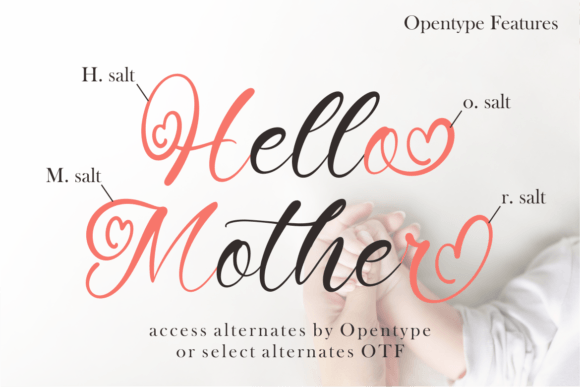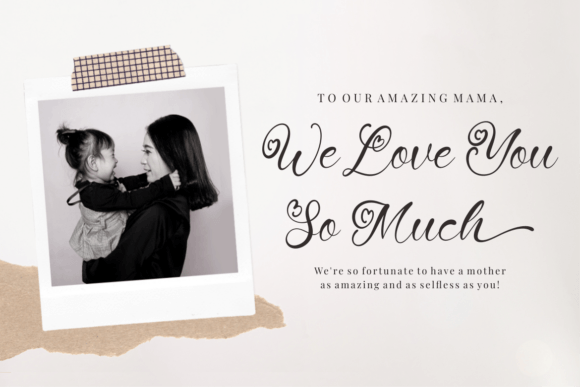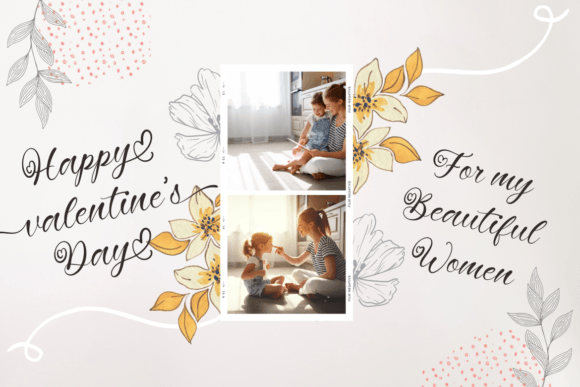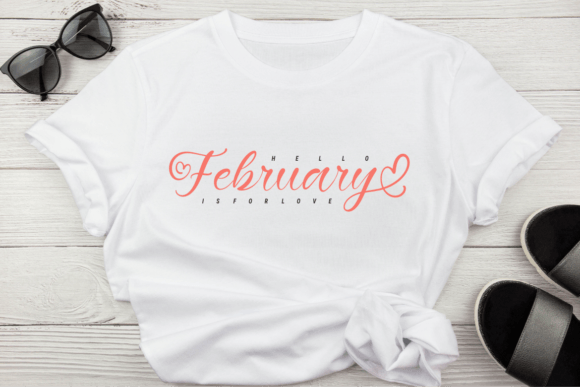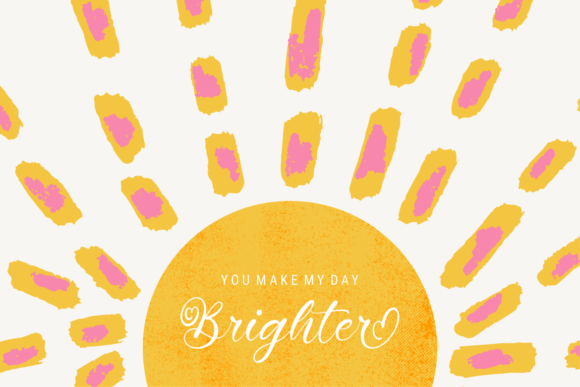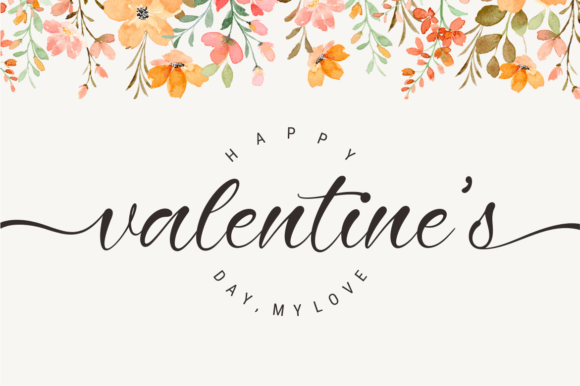
When Words Speak from the Heart
Have you ever sat down with a blank canvas, pen in hand, and a message to convey to someone you love? The words may flow effortlessly, but it’s the way they’re written that can truly make the moment special. That’s where the Hello Mother Font comes in – a beautiful, handwritten font that adds a touch of romance to any design.
Designed specifically for occasions like Mother’s Day, Valentine’s Day, and weddings, this lovely font is a treasure trove for designers looking to create heartfelt and personalized designs. With its PUA encoding, accessing the amazing glyphs and ligatures is a breeze, making it an invaluable addition to any designer’s toolkit.
Whether you’re working on a photography project, logo design, or simply want to express your love through words, the Hello Mother Font is sure to add a personal touch to your creations.
Hello Mother Font Key Features
- Unique Characteristics: Hello Mother Font features a unique, cursive script style with a friendly and approachable tone, making it ideal for greeting cards, invitations, and other personal correspondence.
Hello Mother Font Review
As a designer, I was excited to try out the Hello Mother Font. I have to say, it’s a charming script font with a lot of character. The rounded edges and flowing lines give it a warm, friendly feel that’s perfect for projects that need a personal touch. ✨
One of the things that stood out to me was the font’s versatility. It’s suitable for a wide range of applications, from invitations and greeting cards to blog posts and social media graphics. The font’s flexibility makes it easy to use in different contexts without looking out of place. ✨
- Rounded edges and flowing lines create a friendly, approachable feel
- Perfect for personal, handwritten-style projects
- Versatile and suitable for various applications
- Easy to read and understand, even at smaller font sizes
While the Hello Mother Font is a great choice for many projects, there are a few limitations to consider. One of the main issues is the font’s limited character set. While it includes a decent selection of letters and punctuation, it’s not comprehensive enough for more complex projects. Additionally, the font may not be the best choice for projects that require a lot of emphasis or highlighting, as the subtle style can get lost. ⚠️
Overall, I think the Hello Mother Font is a great addition to any designer’s toolkit. While it has its limitations, it’s a charming and versatile font that’s perfect for projects that need a personal touch. With a little creativity and experimentation, I think this font has a lot of potential for delivering unique and engaging designs.
Use Hello Mother Font for creative projects that require a unique and playful touch. It pairs well with bright colors and bold graphics. Experiment with different font sizes and styles to create a visually appealing design.
Hello Mother Font is perfect for:
1. Social media graphics and advertisements
2. Children’s book illustrations and designs
3. Party invitations and decorations
4. Branding and marketing materials